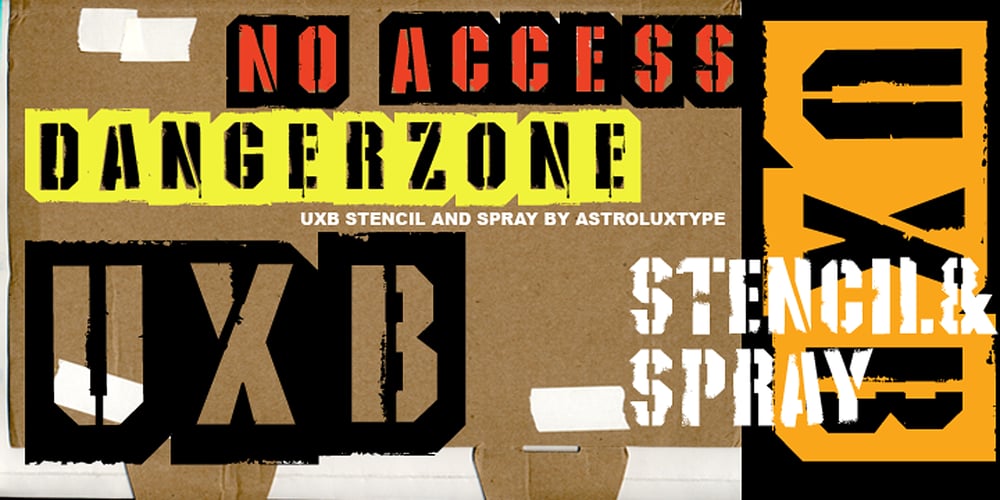
UXB Font Family was designed by Glenn Parsons and published by astroluxtype. UXB contains 3 styles and family package options. UXB Stencil and its companion UXB Spray contain both the stencil and the sprayed letters in two fonts. The font is a headline display uppercase only character set, which is duplicated in the lowercase keys, identical in form (except for an alternate “Z”). No need to remember to hit the caps lock, the font will work with lowercase key strokes. UXB Spray is also a headline display uppercase only character set but, includes a few “drip” characters (find them in the lowercase key positions) these apply when you have held the spraycan over the stencil too long and made a mess. Use separately or together for a maximum design explosion. The fonts used together with color can create many nice design effects- by offsetting characters and putting one font in front of the other for a second effect. UXB it’s an emergency.